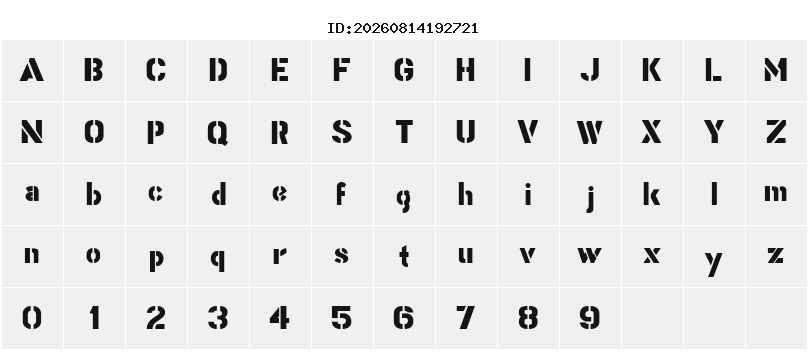
• Font Name: Stencil Gothic Bold JL
• Designer: Jeffrey N. Levine
• Manufacturer: Jeff's Fonts & Dingbats
• Description: "Stencil Gothic Bold JL".
Stencil Gothic Bold JL.ttf is a modern, elegant sans-serif font designed for ultimate readability and visual harmony. Perfect for branding, headlines, web design, and print materials.